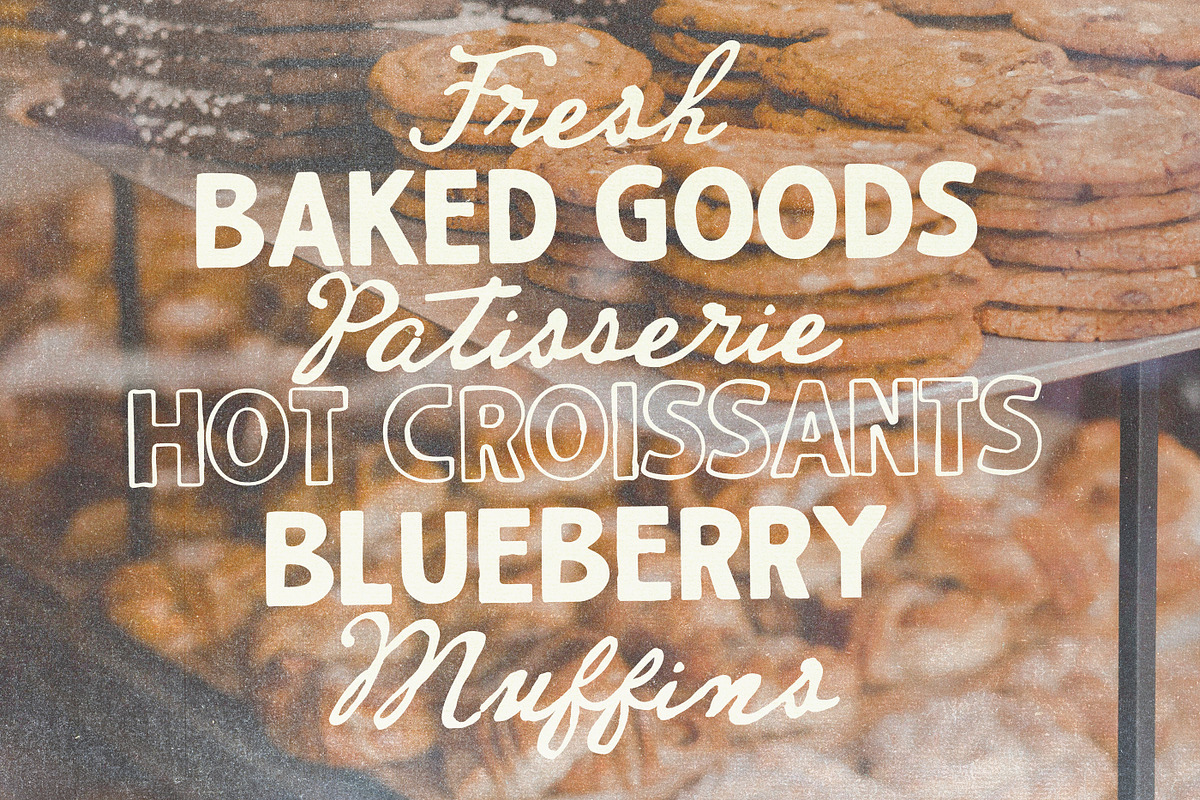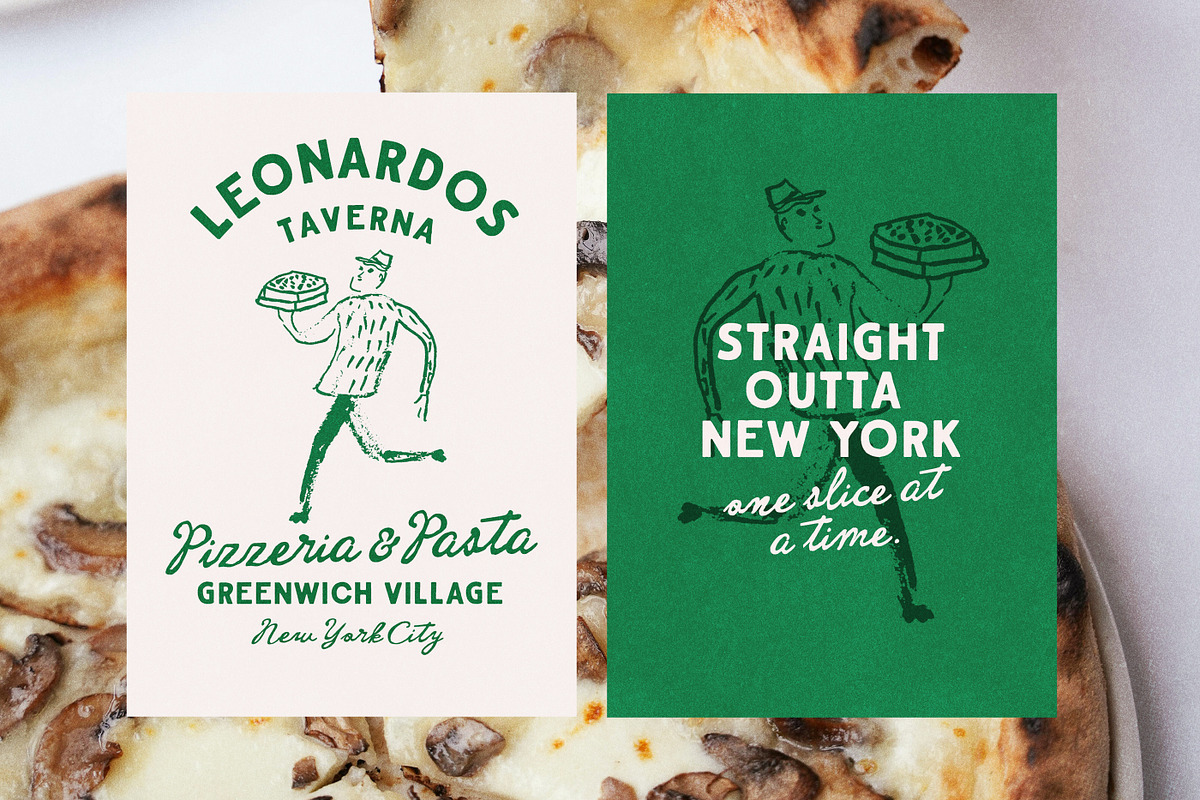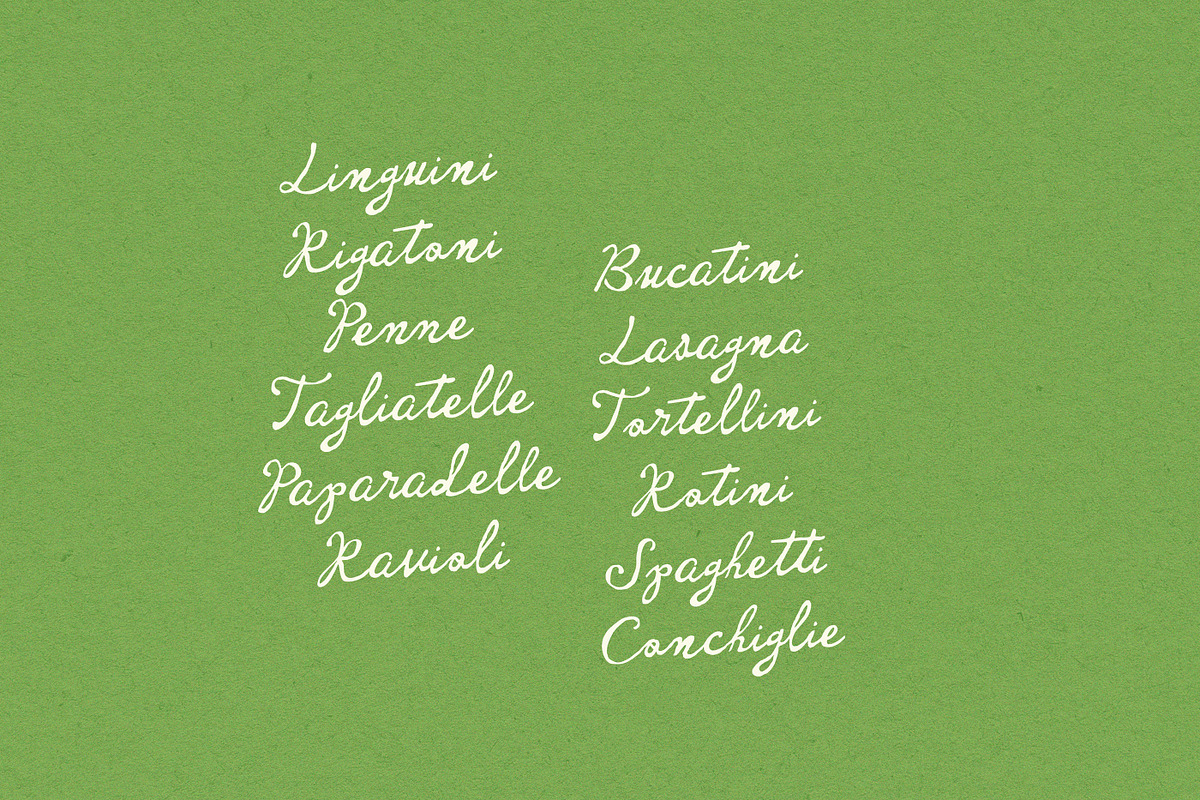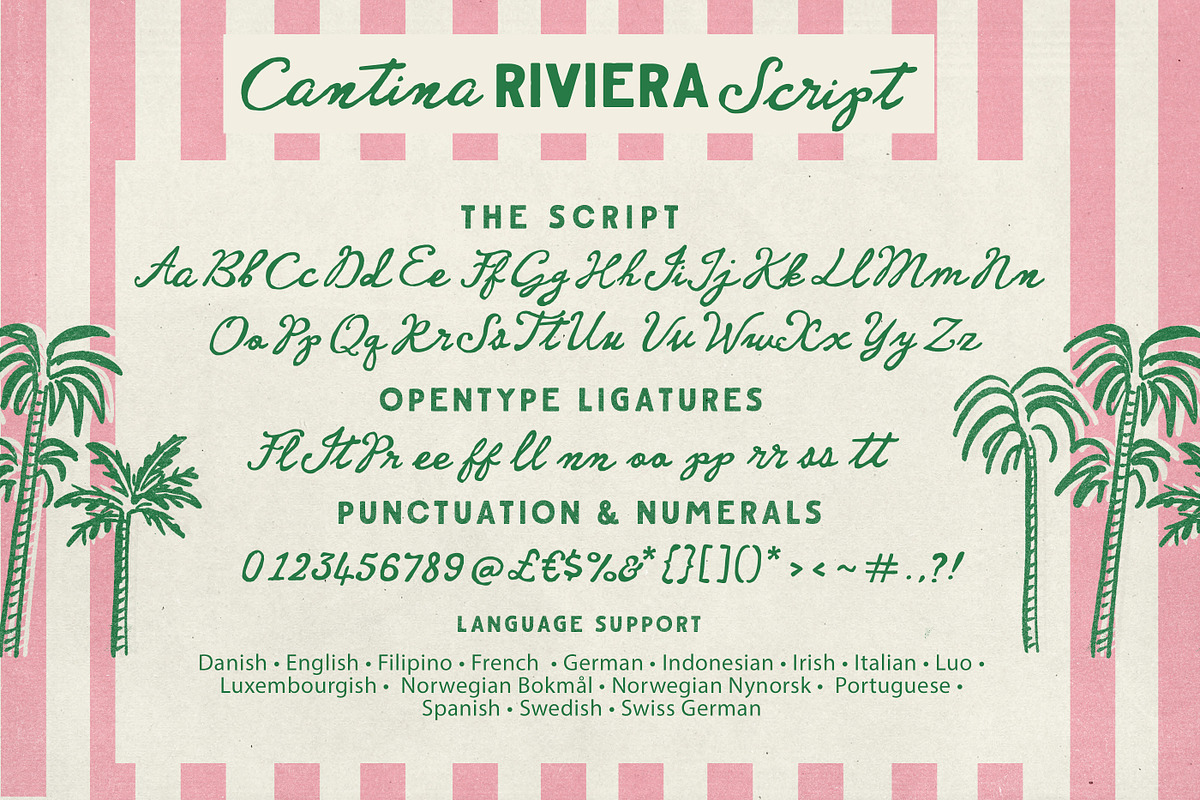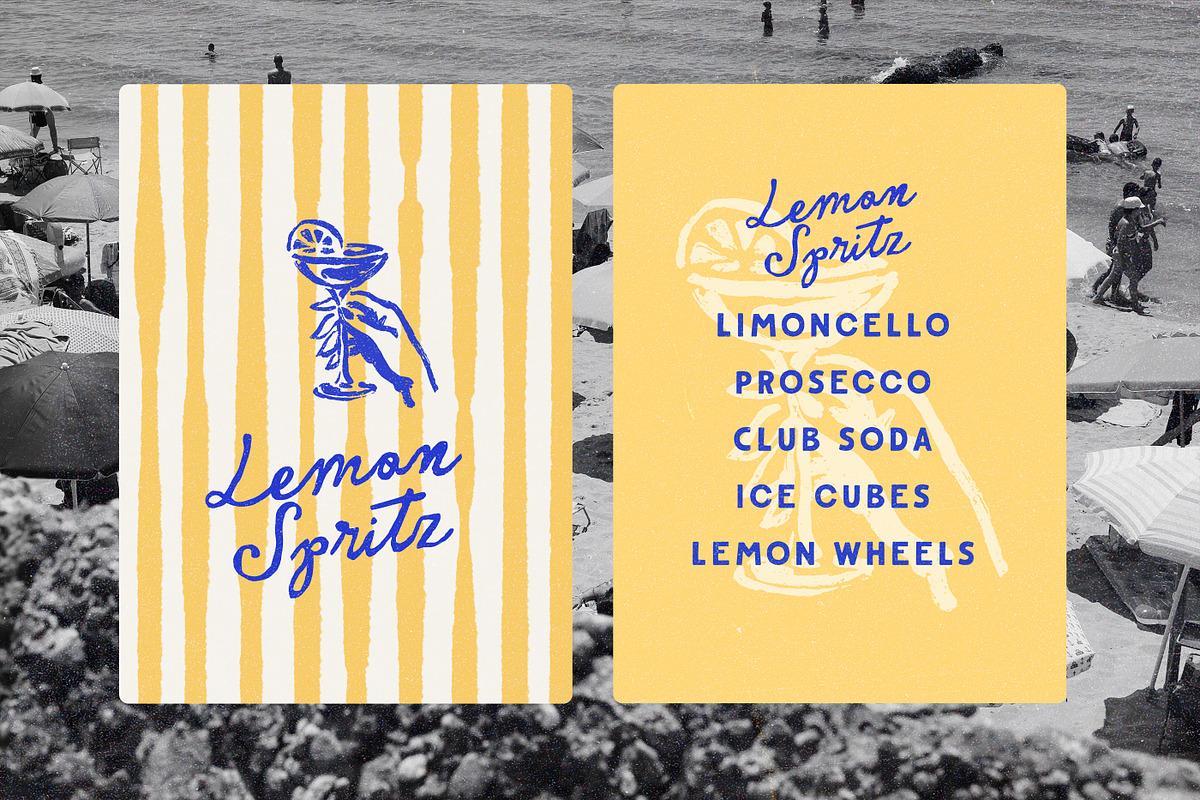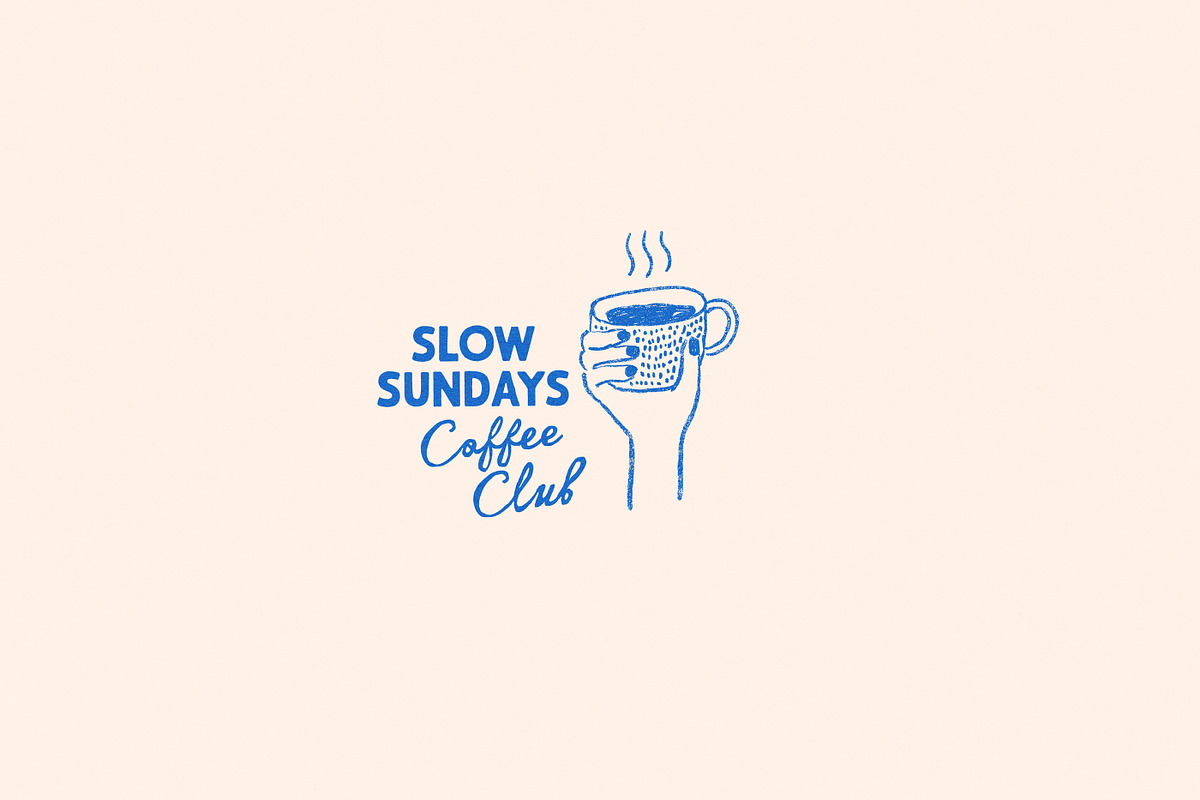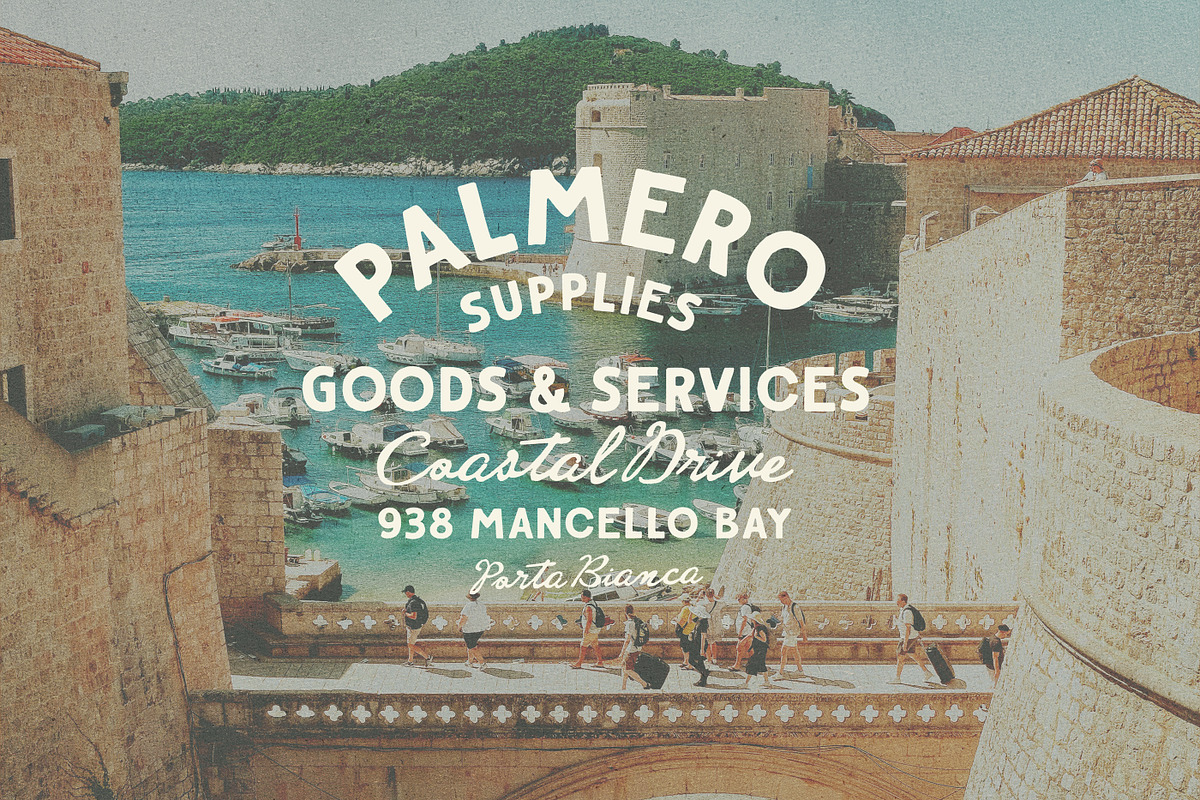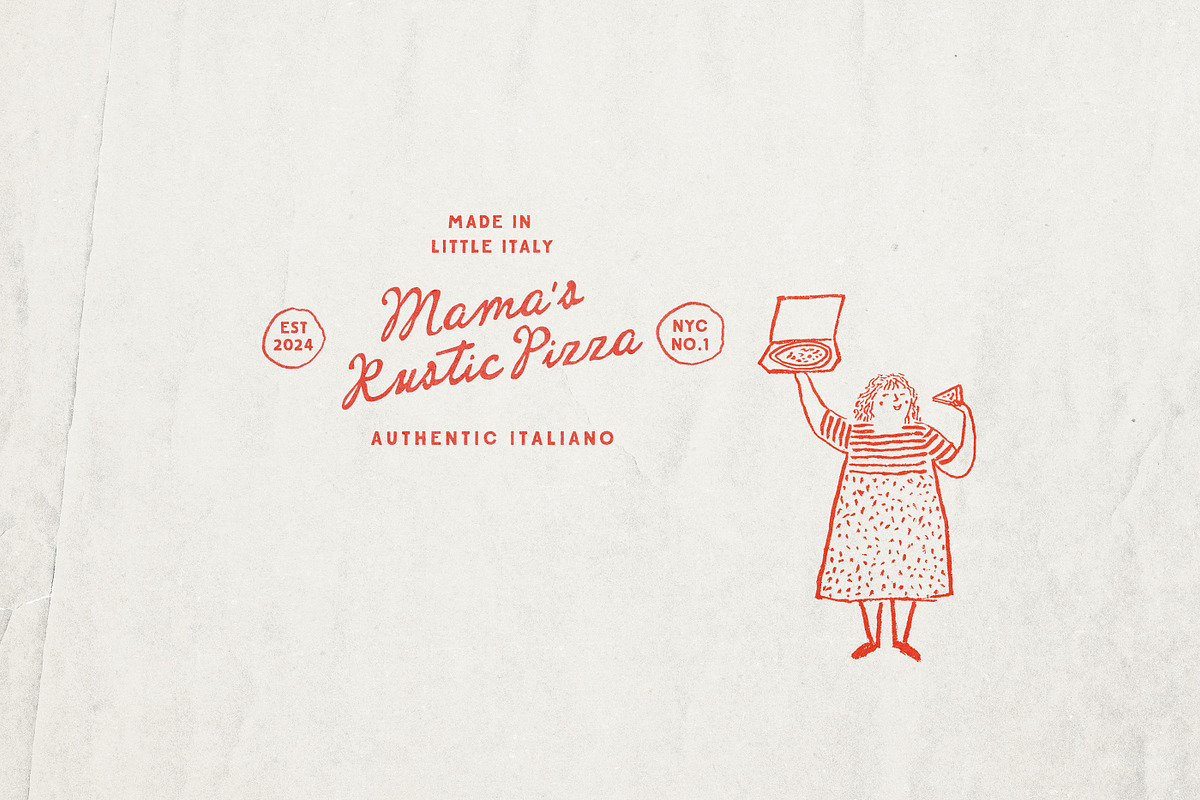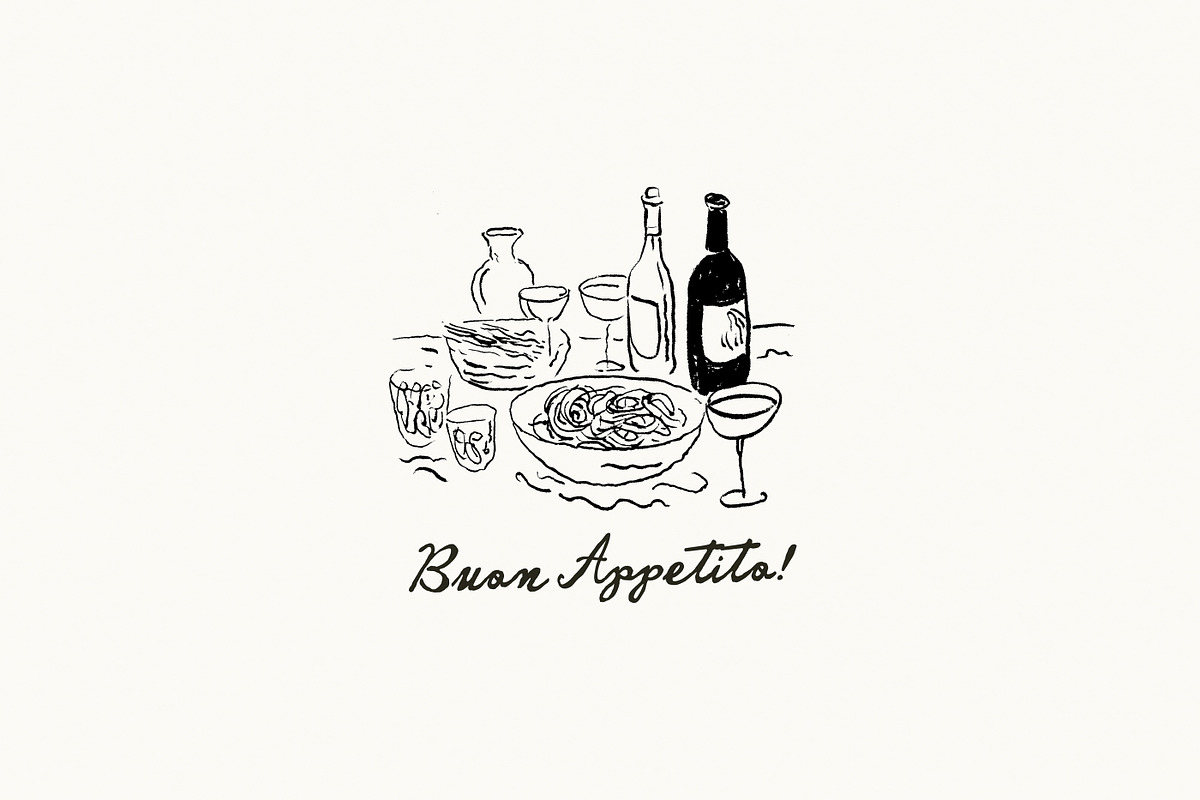
Cantina Riviera Font Duo
Say hello to ‘Cantina Riviera’!
A Font duo inspired by traditional sturdy vintage sign painting, and typographic 50s matchbook designs. A bold, steady , rough edged sans couples with a fluid, inky, imperfect script. They were right when they said Opposites attract!
Perfect for bold branding, retro packaging, vintage editorial design, preppy posters, handwritten menus and wedding invites, and social graphics that pop :)
The Script has some extra double letter ligatures added to make sure its as natural looking as can be, and is PUA encoded if you require it. A few extra variants with very slight differences in slant and weight are included for you :)
The Caps is available in a smoother version , if you would prefer less roughness, as well as an outline version, and a lighter version.
Language Support : English, French, Danish, Spanish, Swedish, German, Swiss German.